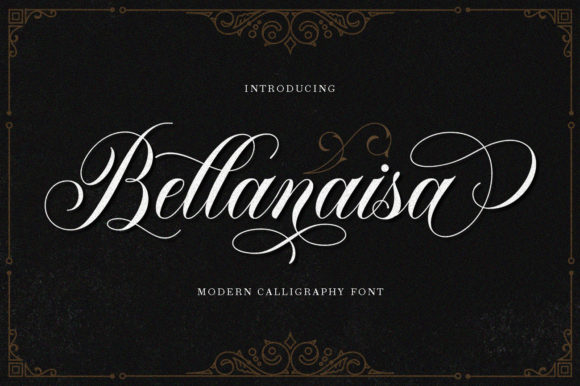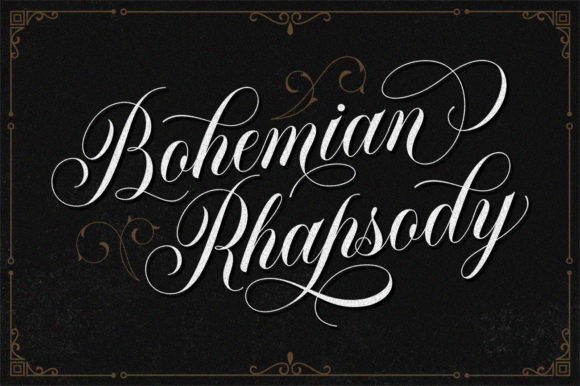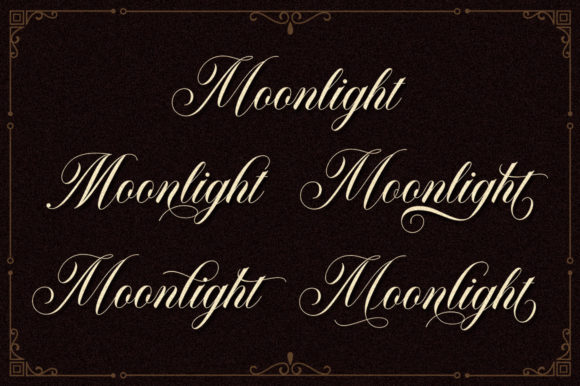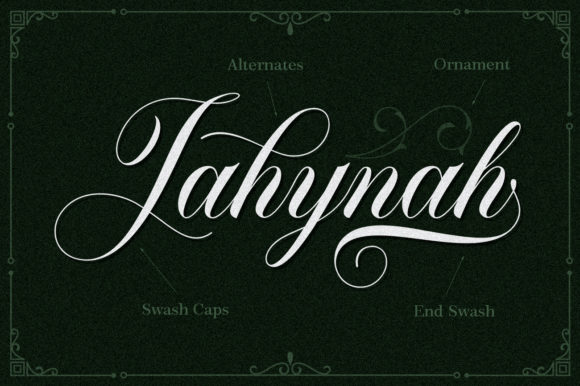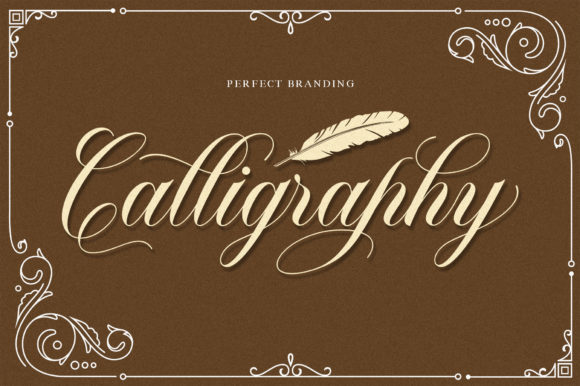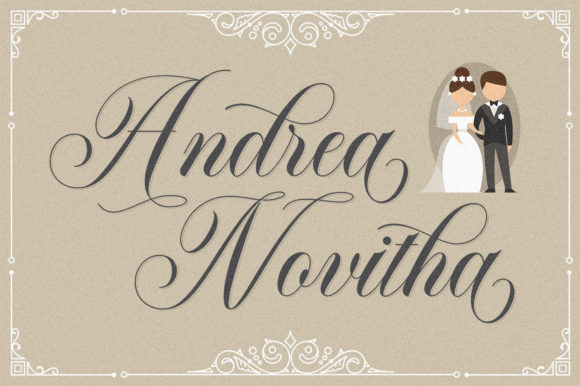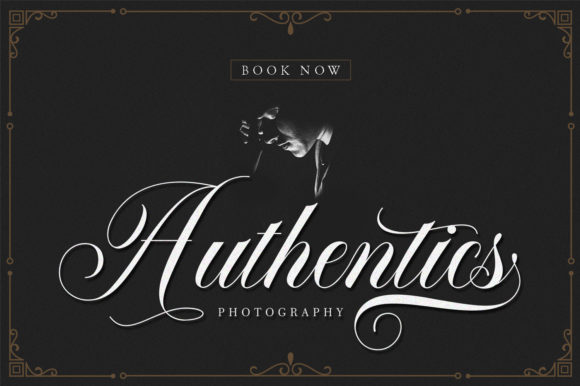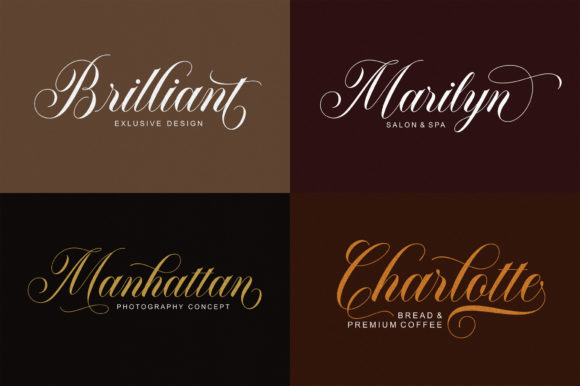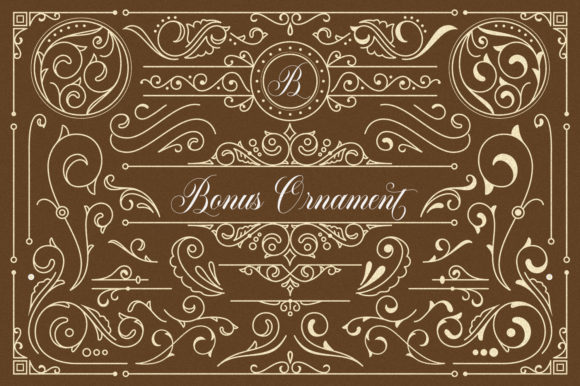
HomeScript FontsBellanaisa Font Script Fonts Bellanaisa Font FacebookXPinterestWhatsApp Bellanaisa Font Poster 2 Bellanaisa Font Poster 3 Bellanaisa Font Poster 4 Bellanaisa Font Poster 5 Bellanaisa Font Poster 6 Bellanaisa Font Poster 7 Bellanaisa Font Poster 8 Bellanaisa Font Poster 9 About Bellanaisa Font Bellanaisa is a stunning script font with a classic twist. It will turn any design project into an eye catcher! DOWNLOAD ON CREATIVE FABRICAThis font is sold and delivered by Creative Fabrica. Font Canyon may earn a commission if you buy through this link. People also explored Keepsake Monograms Shocking Font Happiness Bigbang – Handwritten Font Goldiolus Font Angela Font Cherry Blossoms Font Autumania Font Blackchat Font 286 0 TagsBellanaisa Font Previous articleHolyttha FontNext articleAlica Font LEAVE A REPLY Cancel reply Comment: Please enter your comment! Name:* Please enter your name here Email:* You have entered an incorrect email address! Please enter your email address here Website: Save my name, email, and website in this browser for the next time I comment. Personal Use Free Eloquence Personal Use Free Read more about this font Stentiga Personal Use Free Read more about this font Stone Cold Personal Use Free Read more about this font Dr.Marz Personal Use Free Read more about this font BLOG Top 10 Handwritten Fonts That Elevate Your Designs Top 10 Handwritten Fonts That Will Elevate Your Designs Handwritten fonts bring a warm, personal touch to every creative project. Whether you're designing logos, invitations,... Top 7 Google Fonts Alternatives for Faster and Privacy-Friendly Web Design (2025) How to Cut Any Font on Cricut: Convert a Font to SVG (Free) Free vs Paid Fonts: Why Investing in Premium Fonts Is Worth It